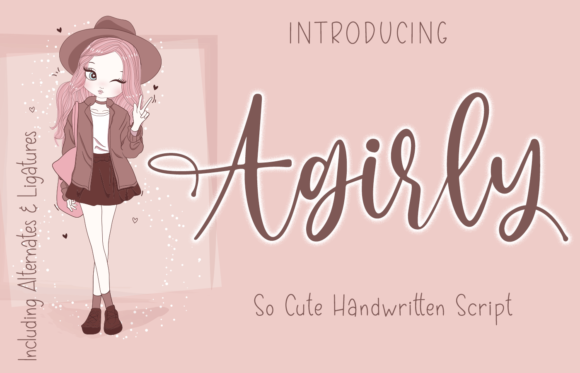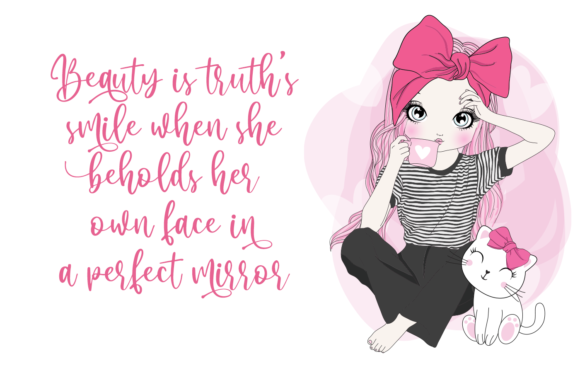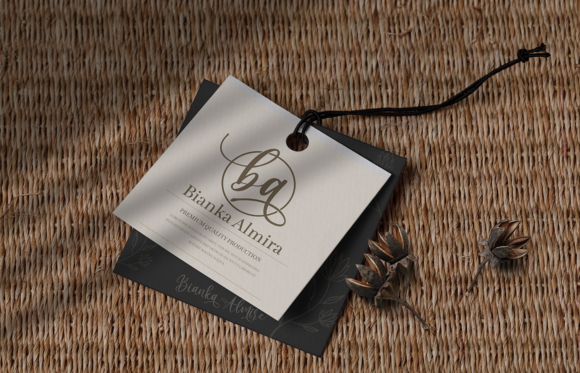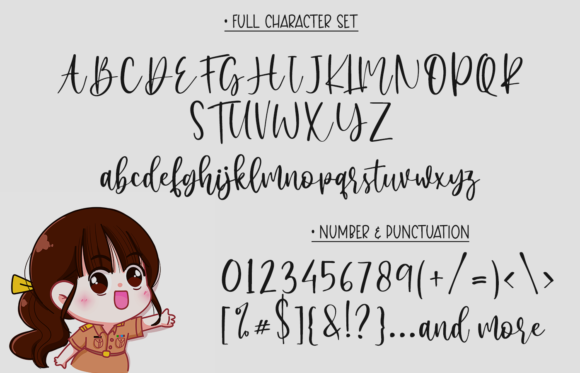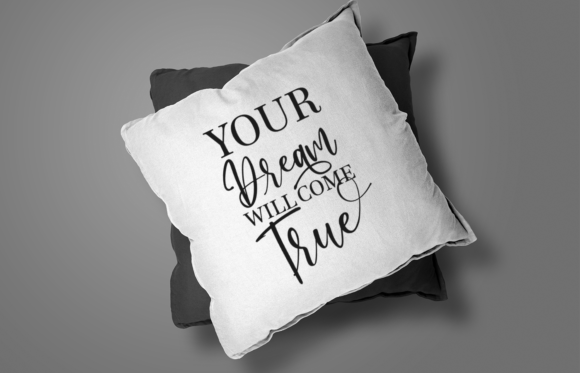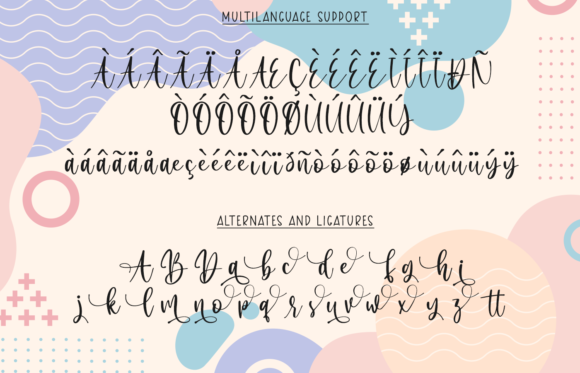
Agirly Font
About Agirly Font
Agirly is a cute script font. Its authentic look will add a personal and realistic feel to your designs. Use this font for your favorite projects and explore its endless possibilities.